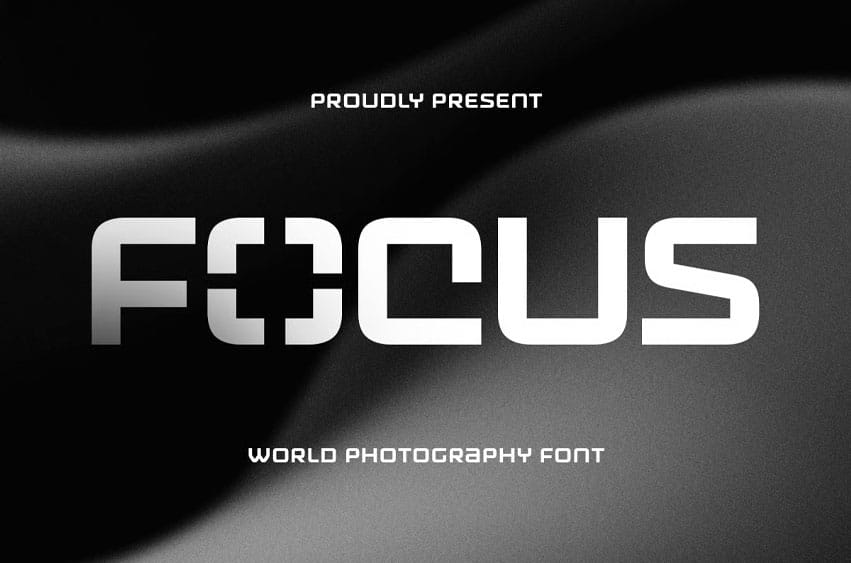
Focus Font is a world photography font designed specifically for photographers, creatives, and brands that want to showcase the beauty of the visual world. With its sleek, modern design and elegant letterforms, FOCUS brings a polished, professional look to photography logos, websites, business cards, and promotional materials.
Inspired by the art of capturing moments, FOCUS offers a clean and stylish aesthetic that works seamlessly across various photography niches, from weddings to lifestyle to commercial photography. Its versatility and legibility make it the perfect choice for creating strong, impactful branding and a timeless identity.
Whether you’re designing for a photography studio, personal portfolio, or a creative agency, FOCUS will help your work stand out with clarity and elegance.
FOCUS – World Photography Font Features
- Elegant, modern letterforms designed for the photography industry
- Perfect for logos, business cards, portfolios, and websites
- Includes uppercase, lowercase, numerals, and punctuation
- Clean, minimalist, and stylish design
- OpenType features for advanced typographic styling
Capture timeless moments with FOCUS – the ultimate font for world-class photography branding.